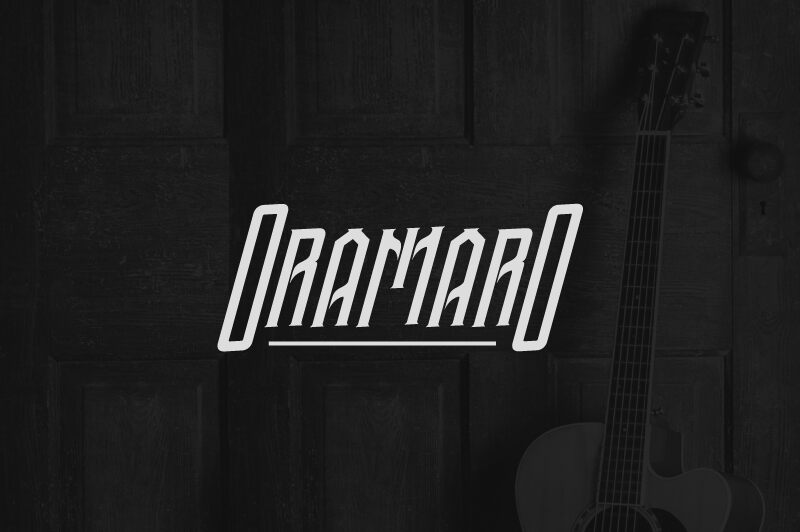
Oramaro, designed by Vacatype Co., is a modern gothic font with a light weight and extra-condensed width. Its sleek and stylish design makes it perfect for contemporary projects that require an edgy touch. From fashion to tech, Oramaro adds a touch of sophistication to any project. Use it for branding, logos, headlines or even social media graphics. Oramaro's unique style is sure to stand out and make a lasting impression on your audience. So go ahead and give your project the modern edge it deserves with Oramaro!
OramaroPersonalUse-Regular — Presentazione del carattere